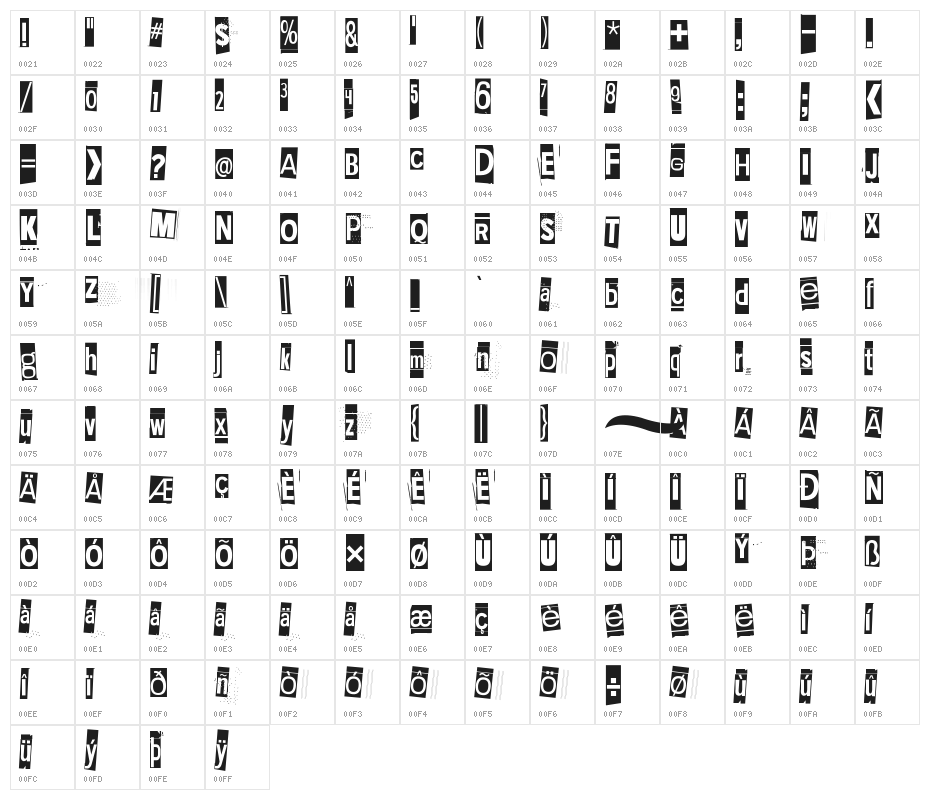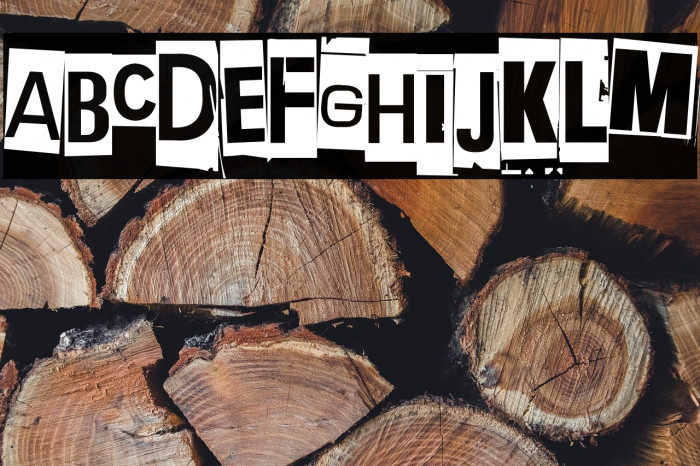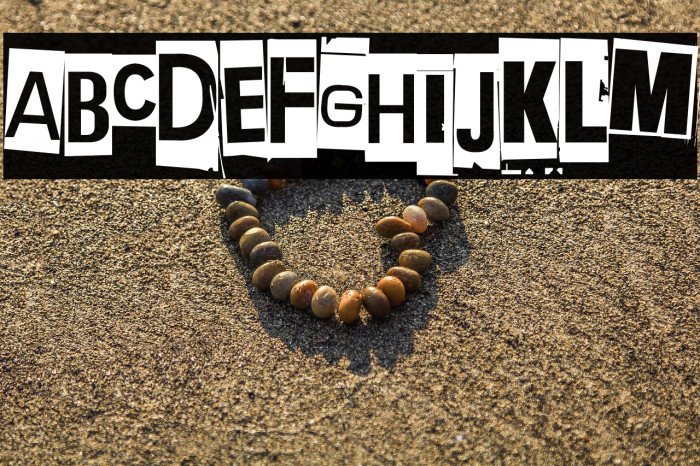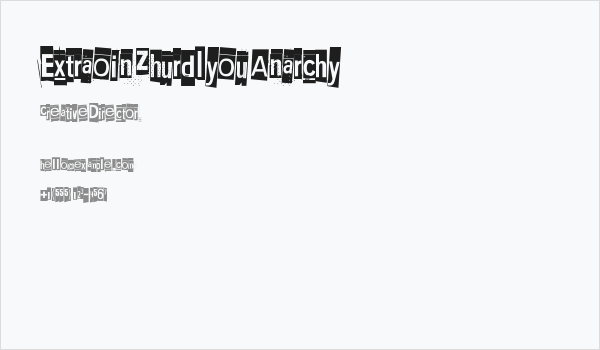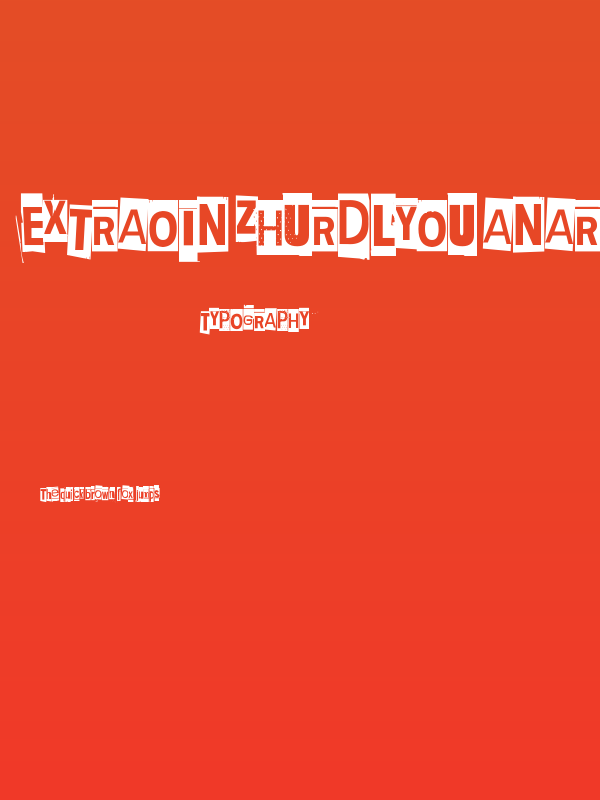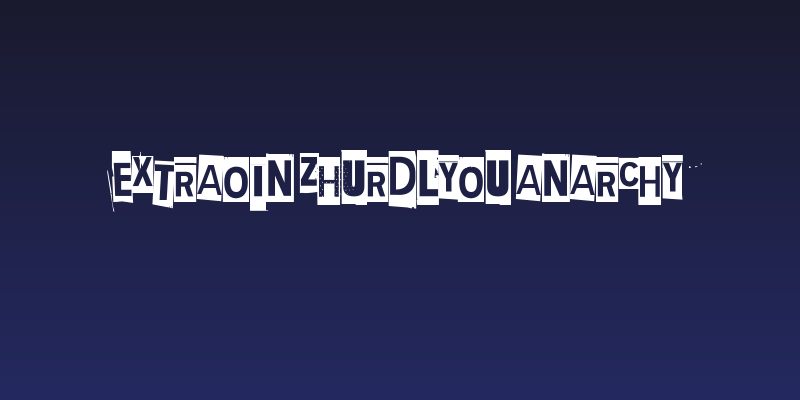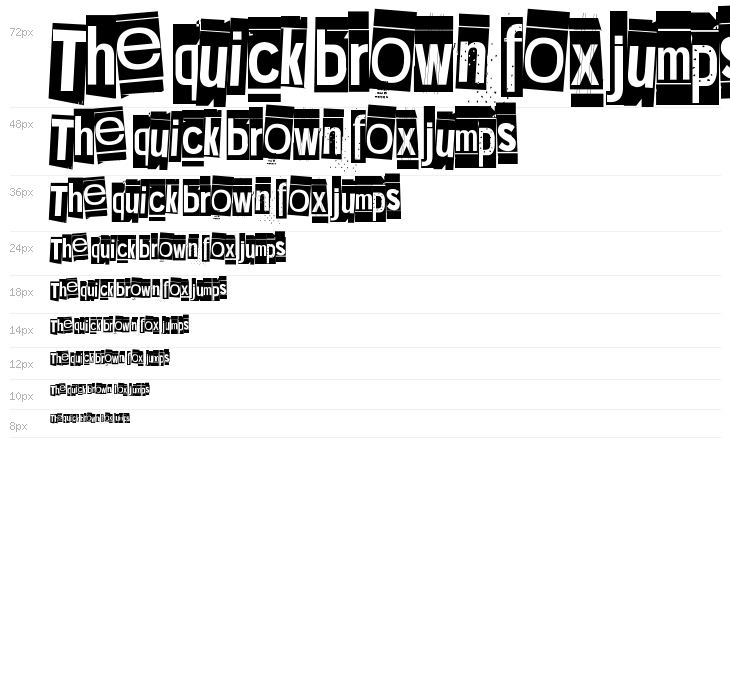
Extraoin Zhurdlyou Anarchy Font
Extraoin Zhurdlyou Anarchy Description
This font embodies a chaotic and rebellious aesthetic, reminiscent of a ransom note style. Each character appears to be cut out from different sources, creating a collage effect with varying sizes and orientations. The letters are bold and impactful, with a mix of uppercase and lowercase styles that add to the disordered charm. The font uses high contrast between black and white, enhancing its striking appearance. The overall design is edgy and unconventional, perfect for projects that require a sense of anarchy or punk influence.
| Overall Style | Anarchic, Punk, Rebellious |
| Use Case | Posters, Album covers, Branding |
| Proposed Projects | Ideal for punk-themed posters, album covers, rebellious branding, or any project needing a bold, unconventional look. |